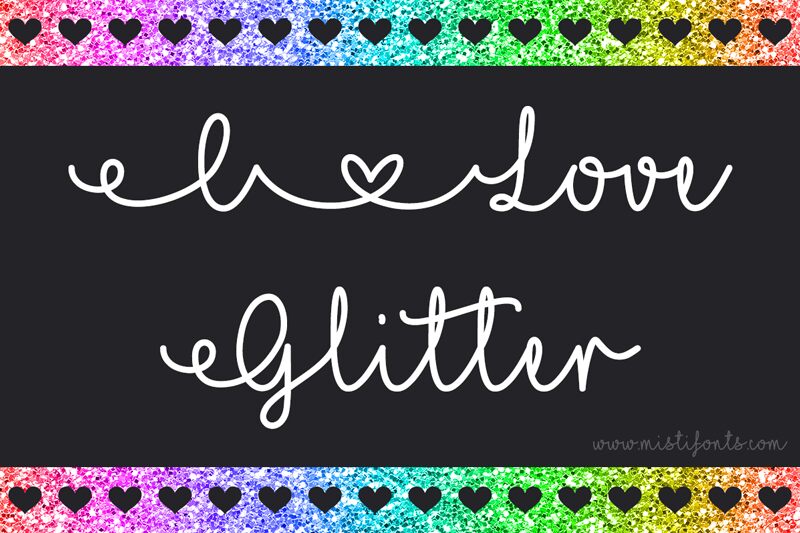
I Love Glitter is a playful, handwritten font that exudes a captivating sense of whimsy and charm. Designed by Misti's Fonts, this font's intricate strokes and delicate flourishes create a distinct, feminine aesthetic that is both elegant and lively.
The letters flow seamlessly, giving the impression of a stylized, handcrafted feel. This font would be particularly well-suited for projects that aim to convey a sense of playfulness, creativity, and a touch of glamour, such as party invitations, greeting cards, or branding materials for fashion and beauty products.